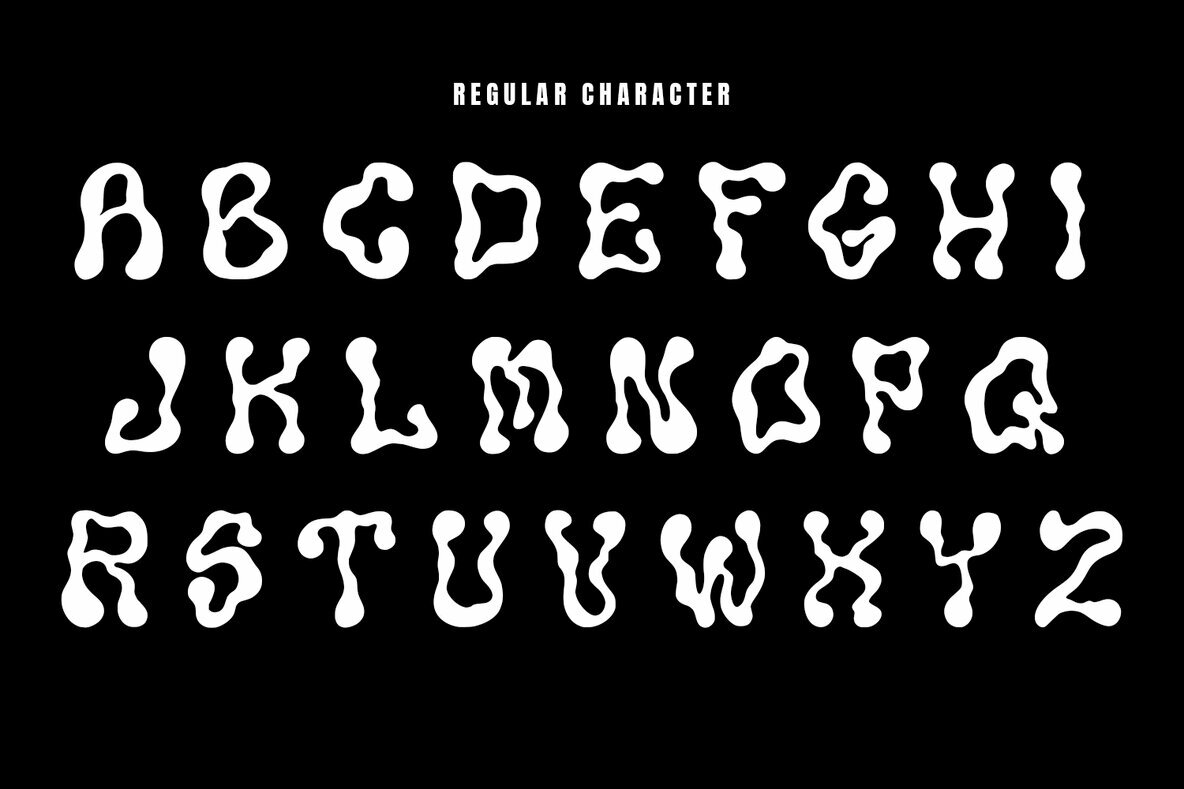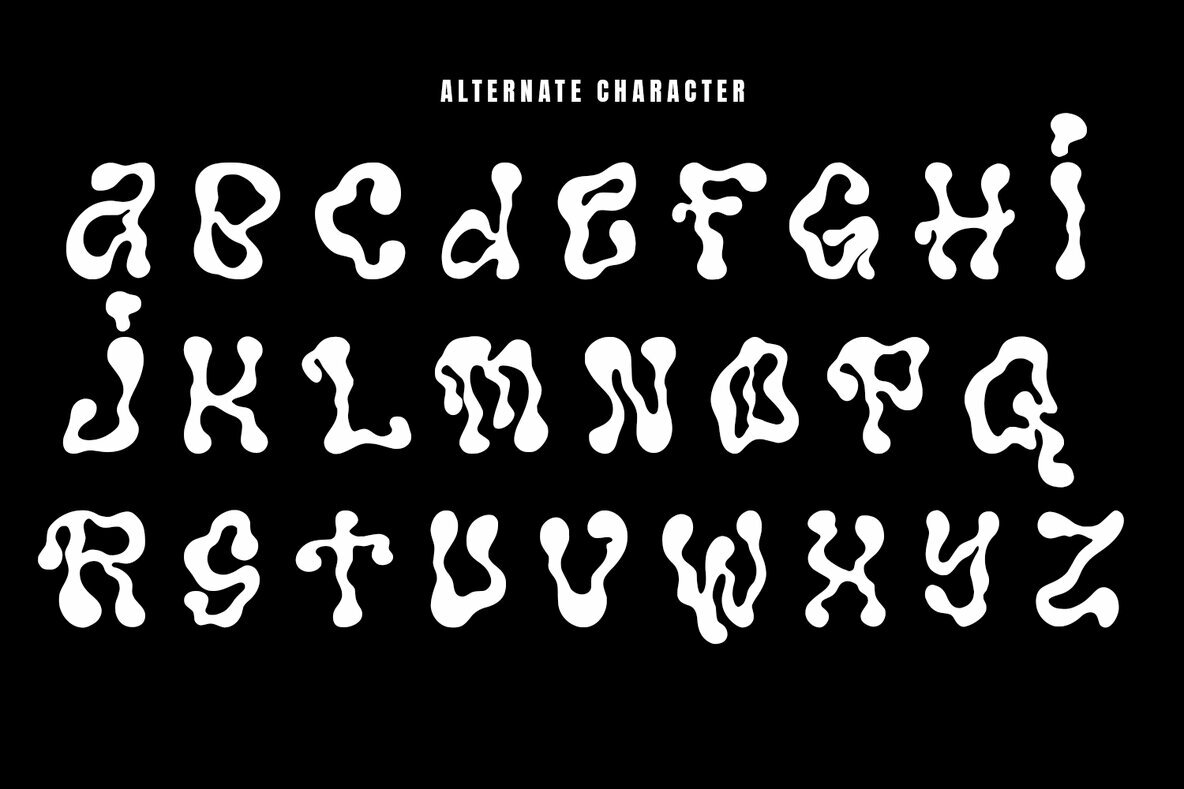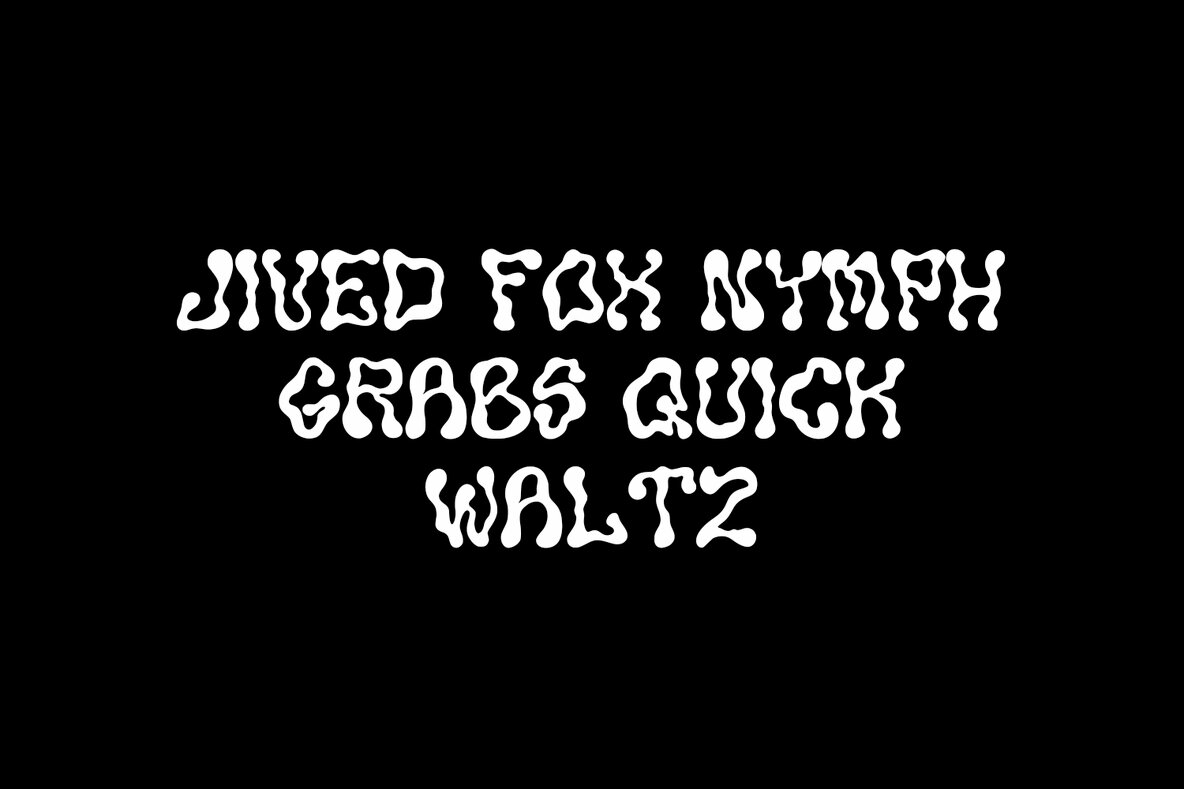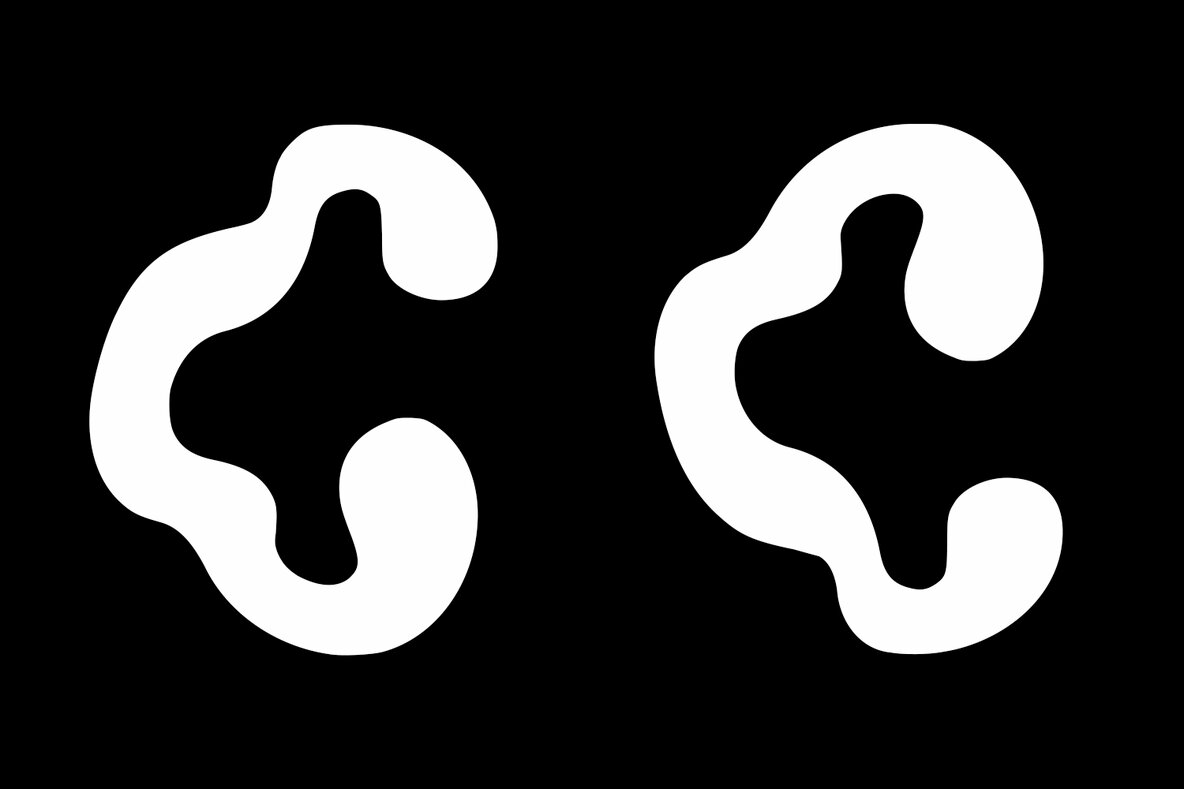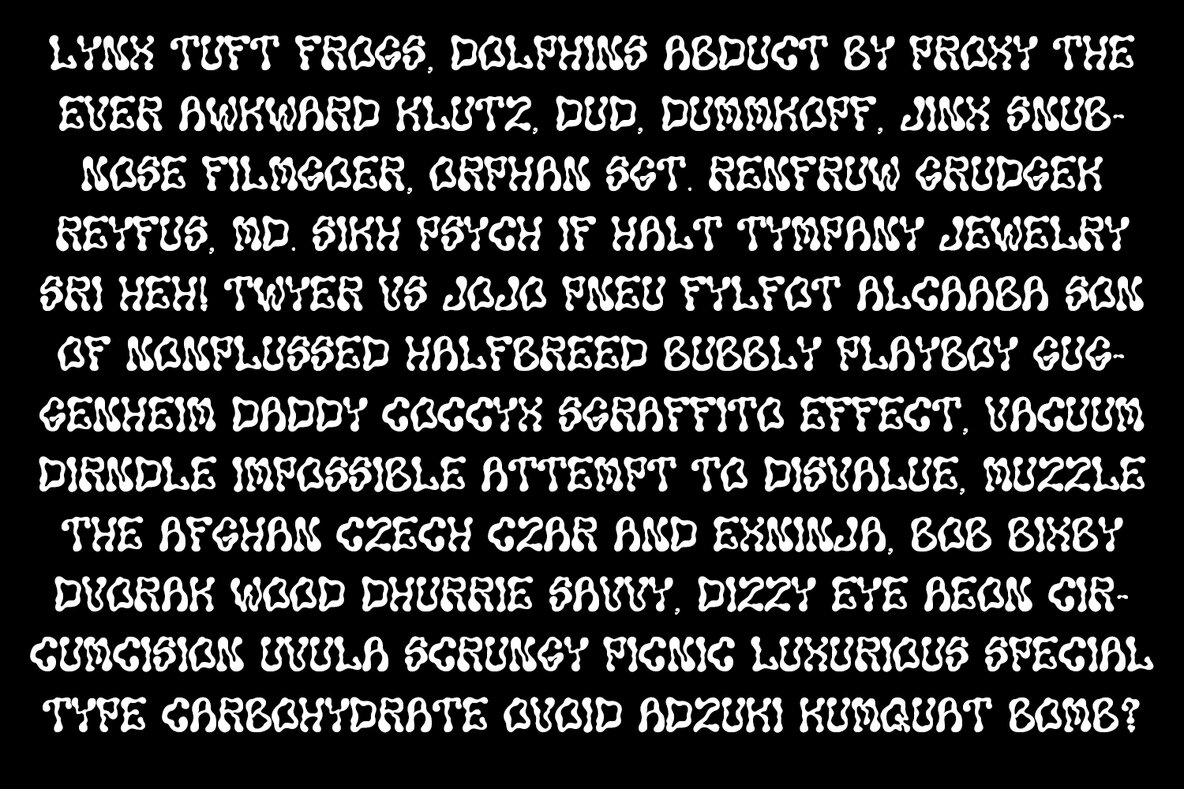
Curly Gloom is a unique category of typefaces that break away from traditional typography. These fonts are defined by their innovative design elements and unconventional letterforms, offering a fresh perspective on design.Curly Gloom: Dynamic and Avant-Garde Typeface